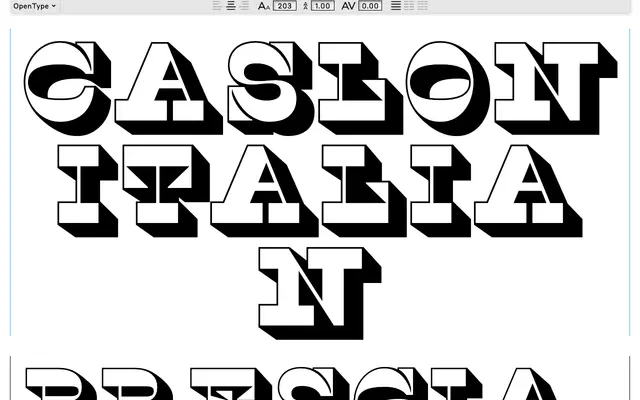
Caslon Italian Shaded
Commercial Type · Paul Barnes · 2018
A shaded cut of Caslon Italian, the reverse-contrast display style introduced by Caslon in 1821.
A shaded display cut by Paul Barnes that adds a layered, drop-shadowed treatment to Caslon's 1821 reverse-contrast Italian, where thins become thicks and thicks become thins. Sits within the wider Caslon revival programme alongside Caslon Italian and Caslon French Antique, suited to posters, packaging, signage and editorial display that want a Victorian display register with extra theatrical weight.
Commercial Type publish Caslon Italian Shaded as a shaded variant within the Caslon Italian programme, the reverse-contrast display style Caslon introduced in 1821.